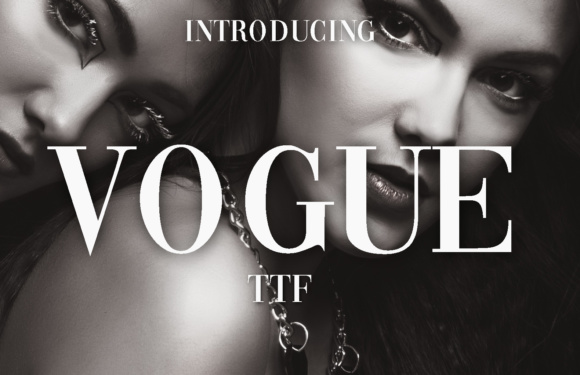
Vogue is a fancy, elegant, fashion font inspired by a popular magazine logo. Vogue is great for headlines, logos, covers, posters, and other creative designs.